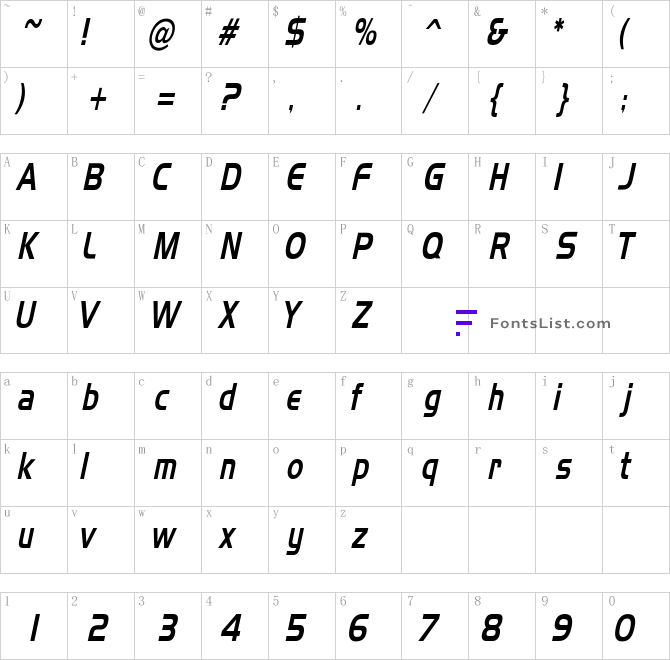
- Font Name:AeroCondensed
- Full Name:AeroCondensed-Italic
- PostScript:AeroCondensed-Italic
AeroCondensed-Italic.ttf is a very beautiful artistic font, AeroCondensed-Italic.ttf is widely used in the design and printing of various books and pictures,AeroCondensed-Italic.ttf has a strong visual impact,AeroCondensed-Italic.ttf is a commonly used font in newspapers, magazines and books, and is used in posters, e-commerce Poster design, store design, logo design, font design and other fields.AeroCondensed-Italic.